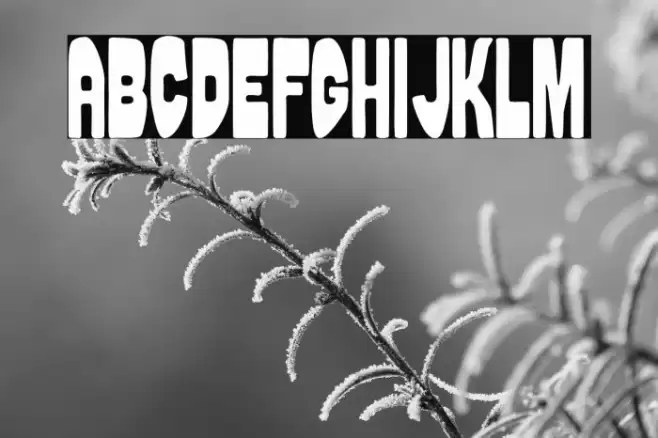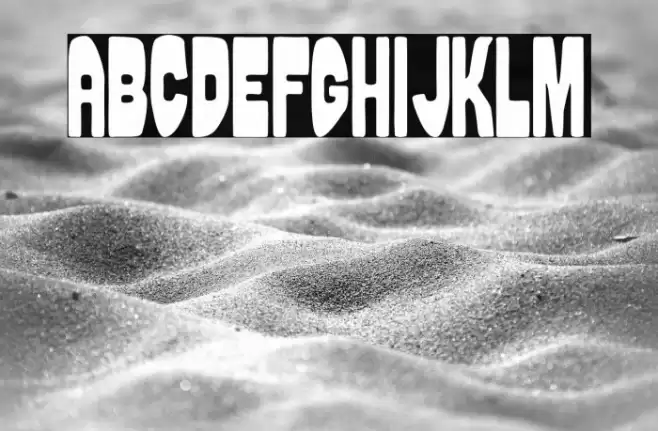
Puerto Rico Beach Font
Puerto Rico Beach Description
This font features a bold and playful design with thick, rounded strokes that give it a friendly and approachable appearance. The characters are slightly condensed, adding to the compact and robust feel of the typeface. The uppercase letters are uniform in height, while the lowercase letters maintain a consistent style, ensuring readability. The numbers and special characters follow the same bold and rounded design, making them stand out. This font is ideal for projects that require a fun and energetic vibe, such as children's books, posters, or branding for playful products.
A bold, playful font with thick, rounded strokes and a friendly appearance from Uncategorized fonts.
- Font: Puerto Rico Beach
- Proposed Projects: Ideal for children's books, playful branding, posters, and creative designs.
- Width: Condensed
- Overall Style: Playful, Energetic
Puerto Rico Beach UPPERCASE
Puerto Rico Beach LOWERCASE
Puerto Rico Beach OTHER CHARS